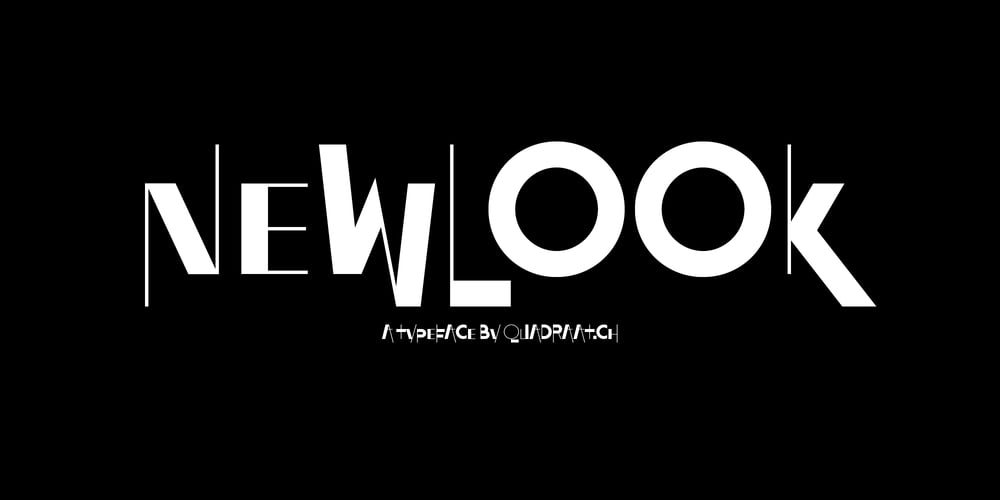
Newlook Font Family was designed by Raphael Picard and published by QUADRAAT. Newlook contains 1 styles and family package options. Newlook is a display font drawn with geometric shapes and high contrast. The stylistic set 01 shows capital letters using heights from descenders to ascenders and x height which gives a crazy dancing look.Perfect for display, poster, magazine etc…Support all latin languages.